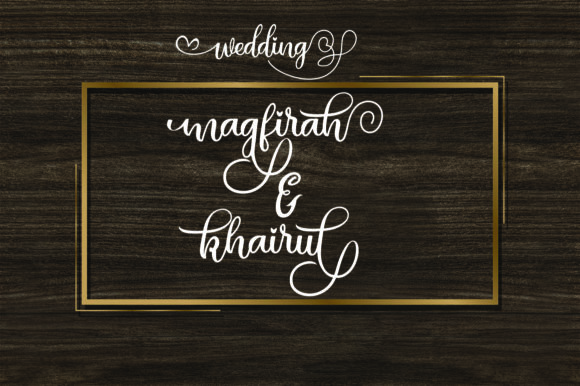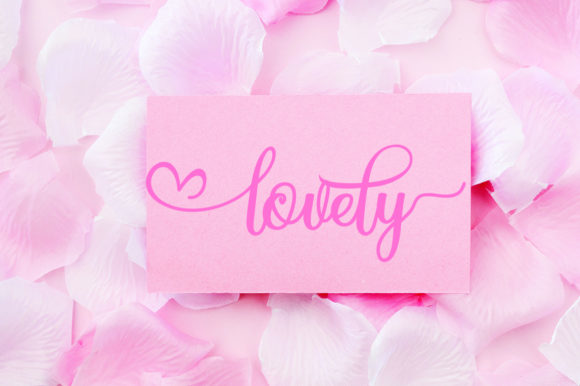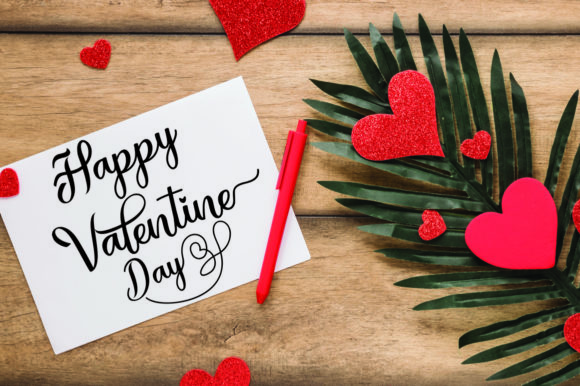
Introduction to Magfirah Font
Have you ever been stuck on a design project, searching for that perfect font to bring your vision to life? You finally find it – a high-quality, free download that elevates your entire creative project. For many designers, this moment is a game-changer. It’s the difference between a good design and a truly stunning one.
One such design resource that’s making waves in the design community is the Magfirah Font. This sweet and charming handwritten font is a treasure trove of creative possibilities, thanks to its stunning swashes that add an extra layer of sophistication to any design. Whether you’re working on a branding project or creating a beautiful invitation, Magfirah Font is sure to impress.
With its transparent background and versatility, Magfirah Font is a valuable asset for any designer looking to take their work to the next level. In this article, we’ll dive deeper into the world of Magfirah Font and explore its many benefits and uses.
Key Features of Magfirah Font
- High-quality design for creative projects, including illustrations, graphics, and more.
- Unique characteristics include intricate details, elegant lines, and a mix of modern and traditional design elements.
- Magfirah Font is suitable for various design projects, from digital art to print materials, and is a great addition to any design library.
Honest Review: Magfirah Font
As a designer, I’m always on the lookout for high-quality design resources that can elevate my creative projects. The Magfirah Font is a great find, and I’m excited to share my honest review with you.
- ✨ The font is highly customizable, allowing me to easily adjust the font size, style, and color to suit my design needs.
- ⚠️ The font library is limited, which can make it challenging to find the perfect font for a specific design project.
- ⚠️ Some users may find the font styles a bit too basic, lacking the sophistication and elegance of more premium fonts.
Overall, I’m impressed with the Magfirah Font’s potential as a design resource. While it may not be perfect, it’s a great starting point for designers looking for a high-quality, free font to use in their creative projects.
Tips for Getting the Most Out of Magfirah Font
For optimal results, use the Magfirah Font with a transparent background to create a clean and modern design aesthetic. Experiment with different font sizes, colors, and combinations to achieve a unique look.
The Magfirah Font is suitable for a variety of projects, including:
- Graphic design and branding
- Print design and marketing materials
Alternatives to Magfirah Font